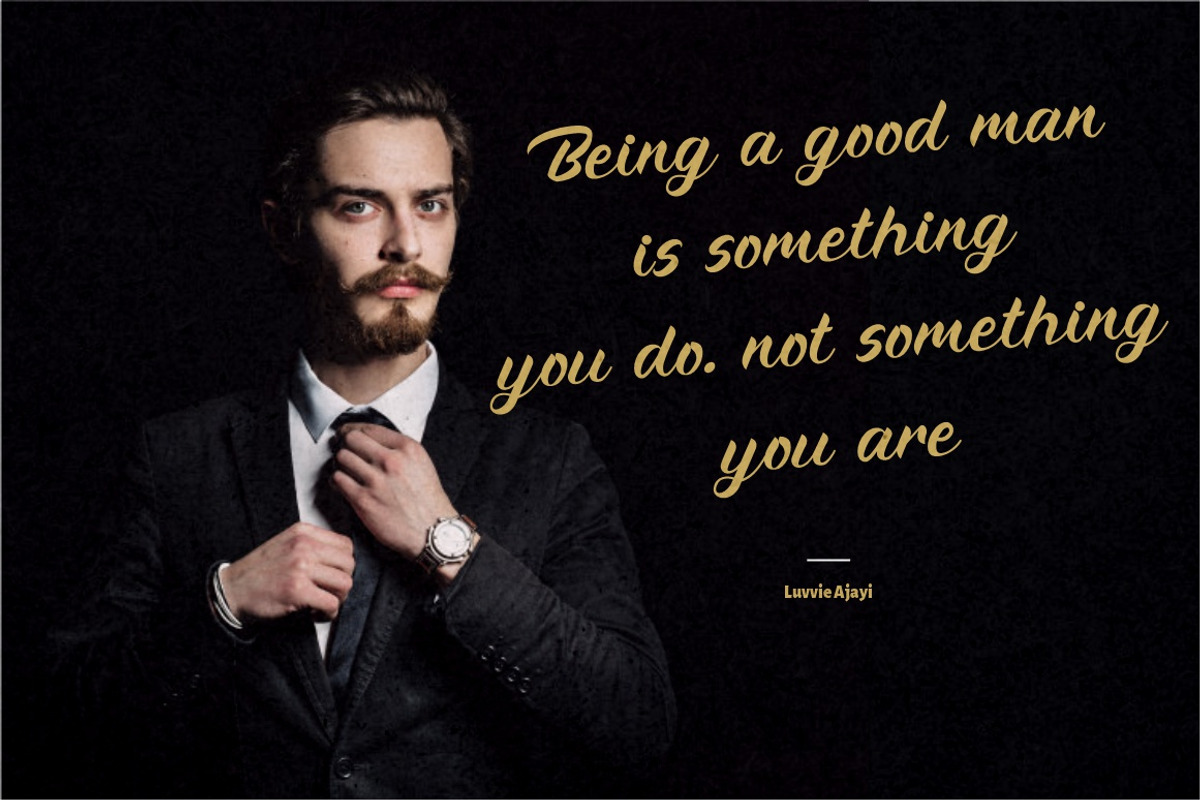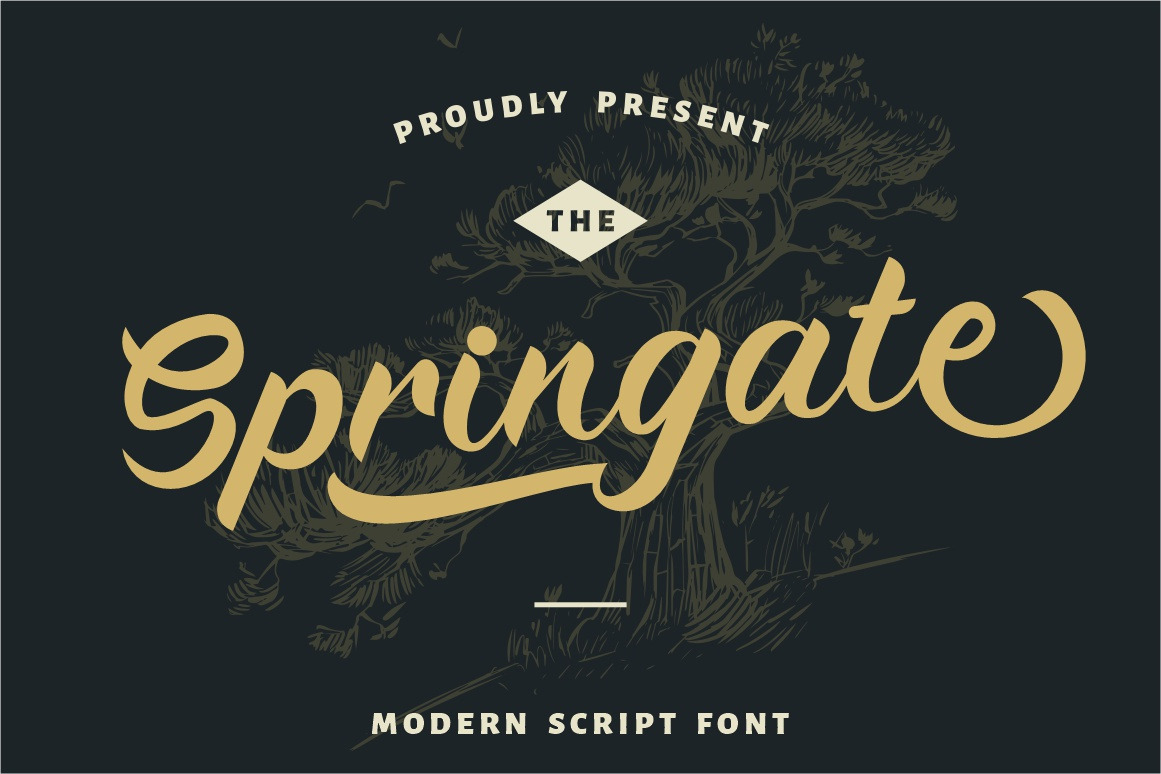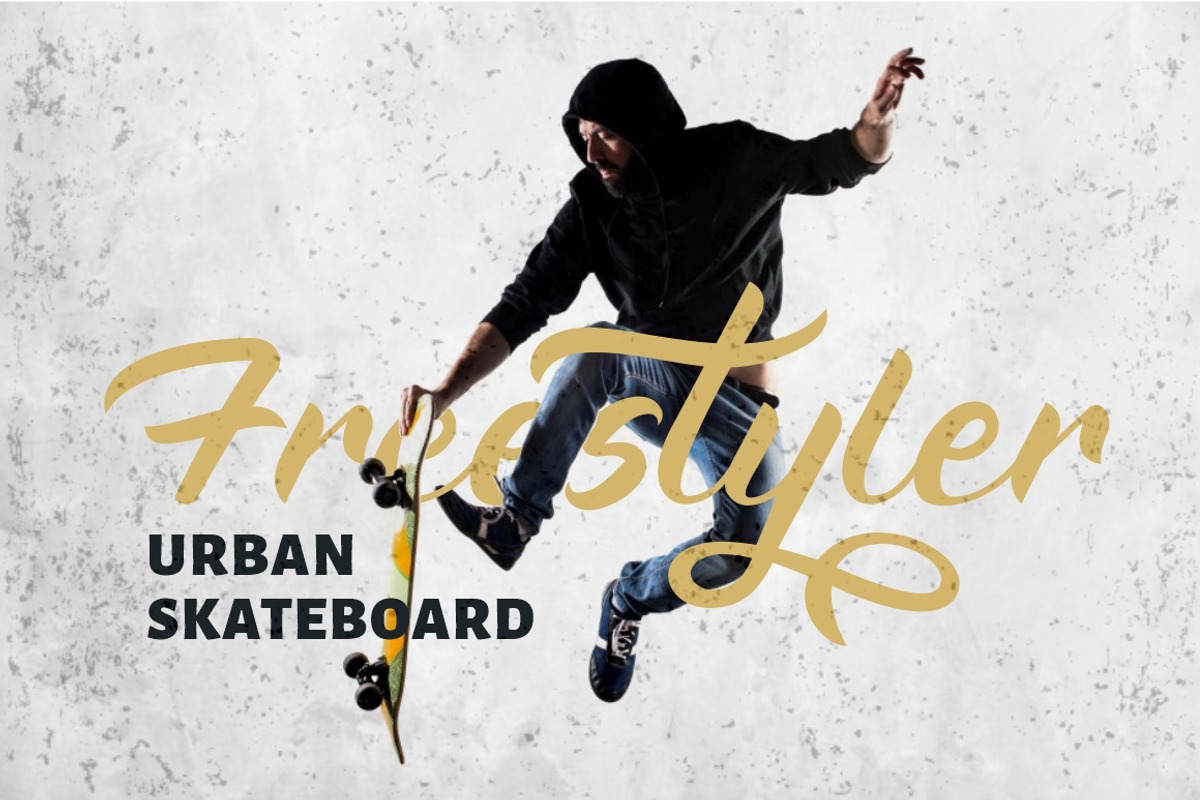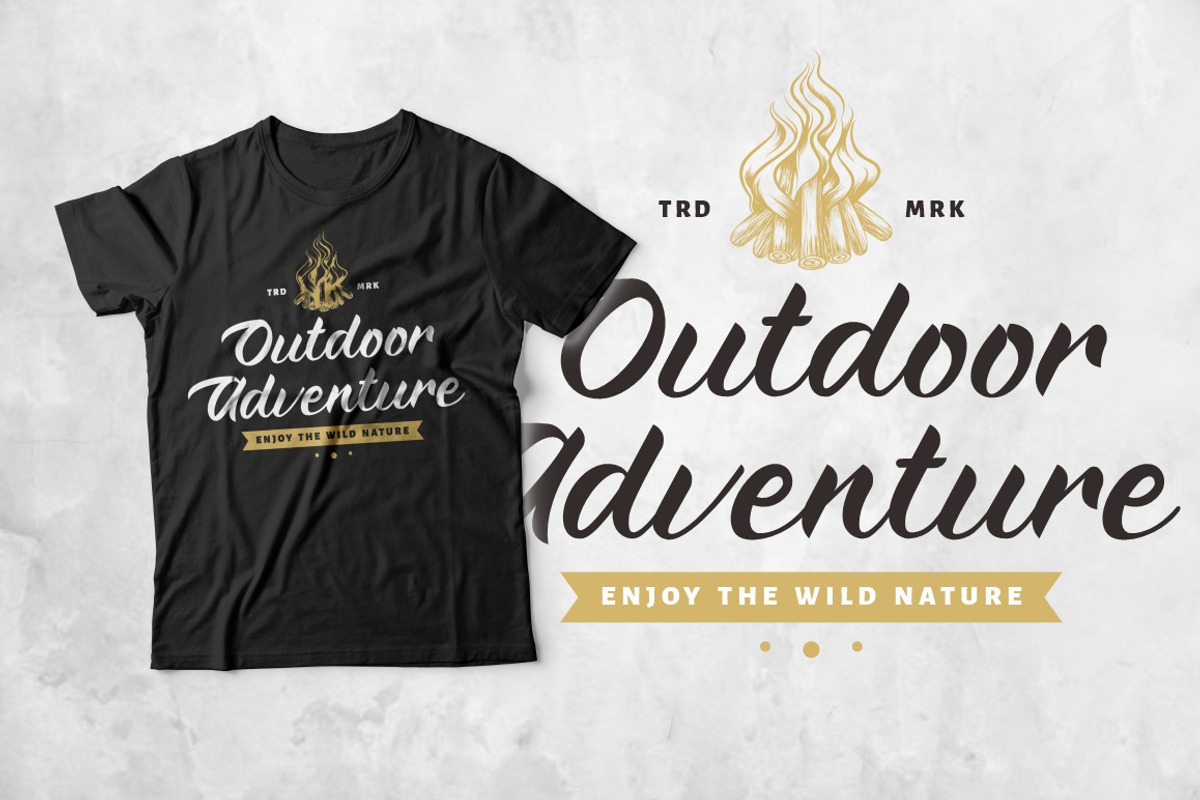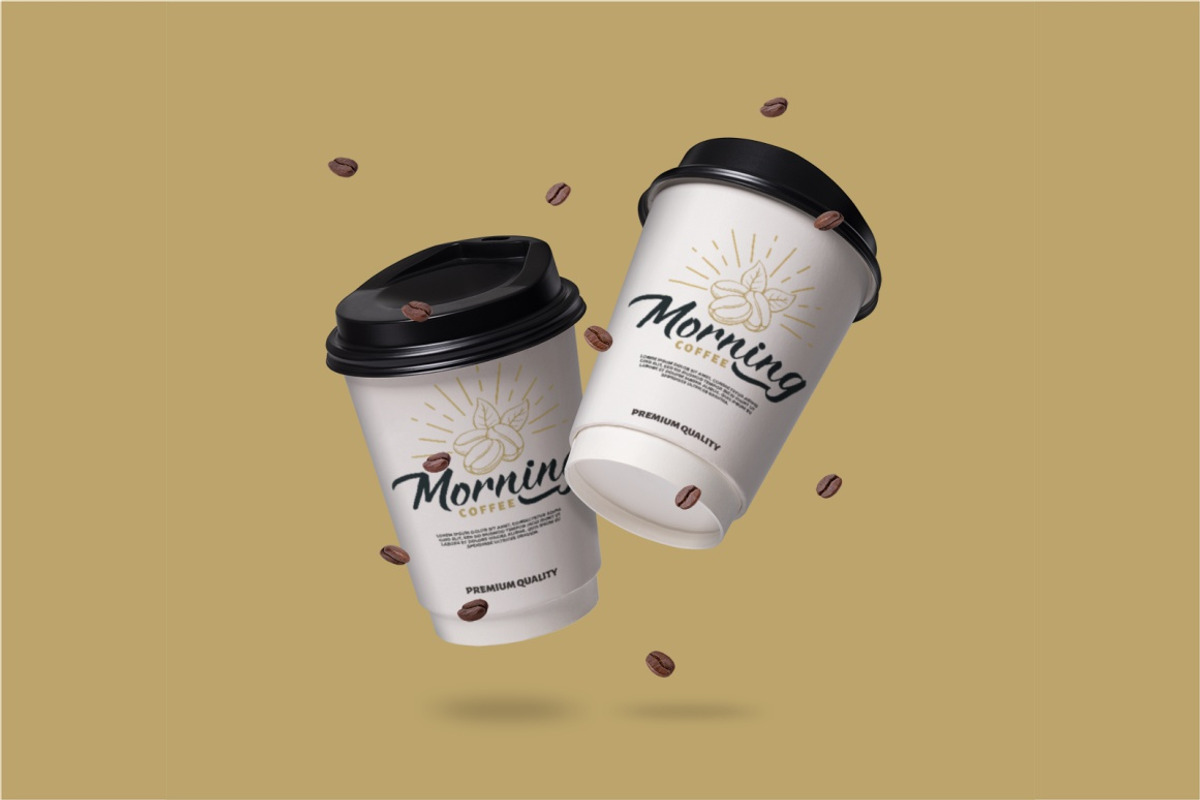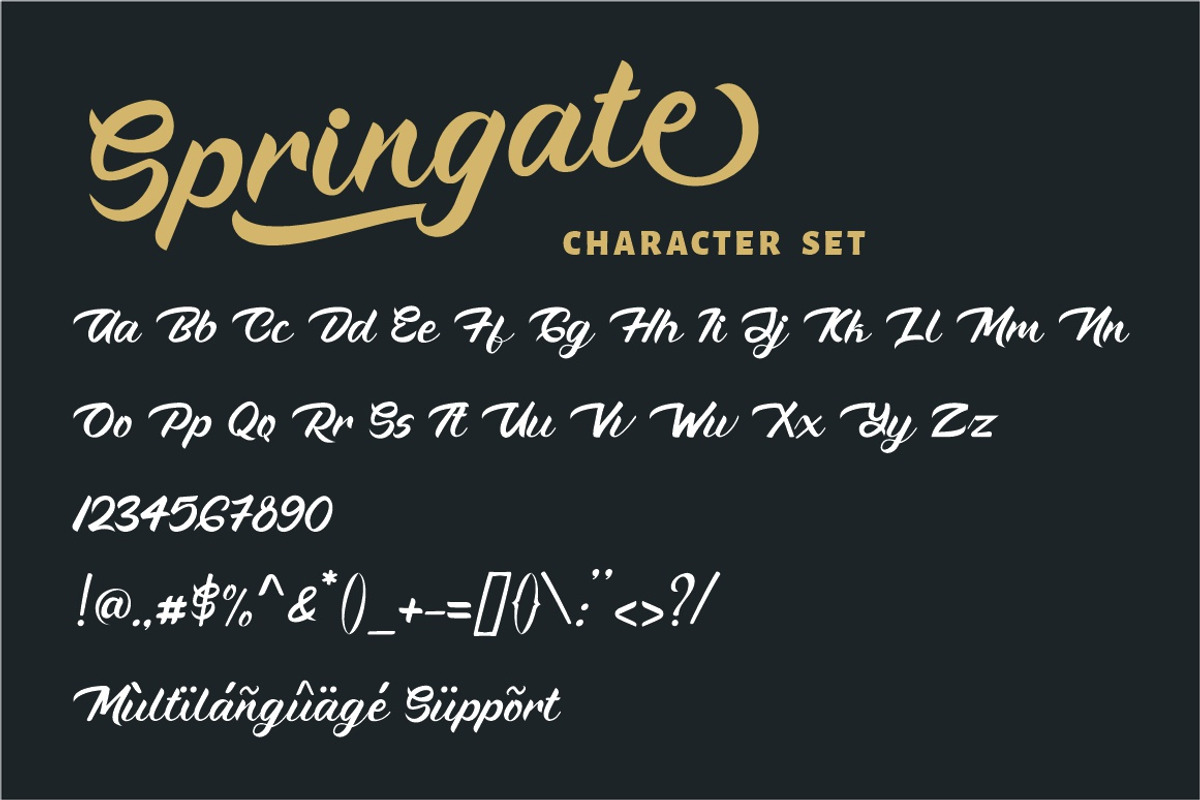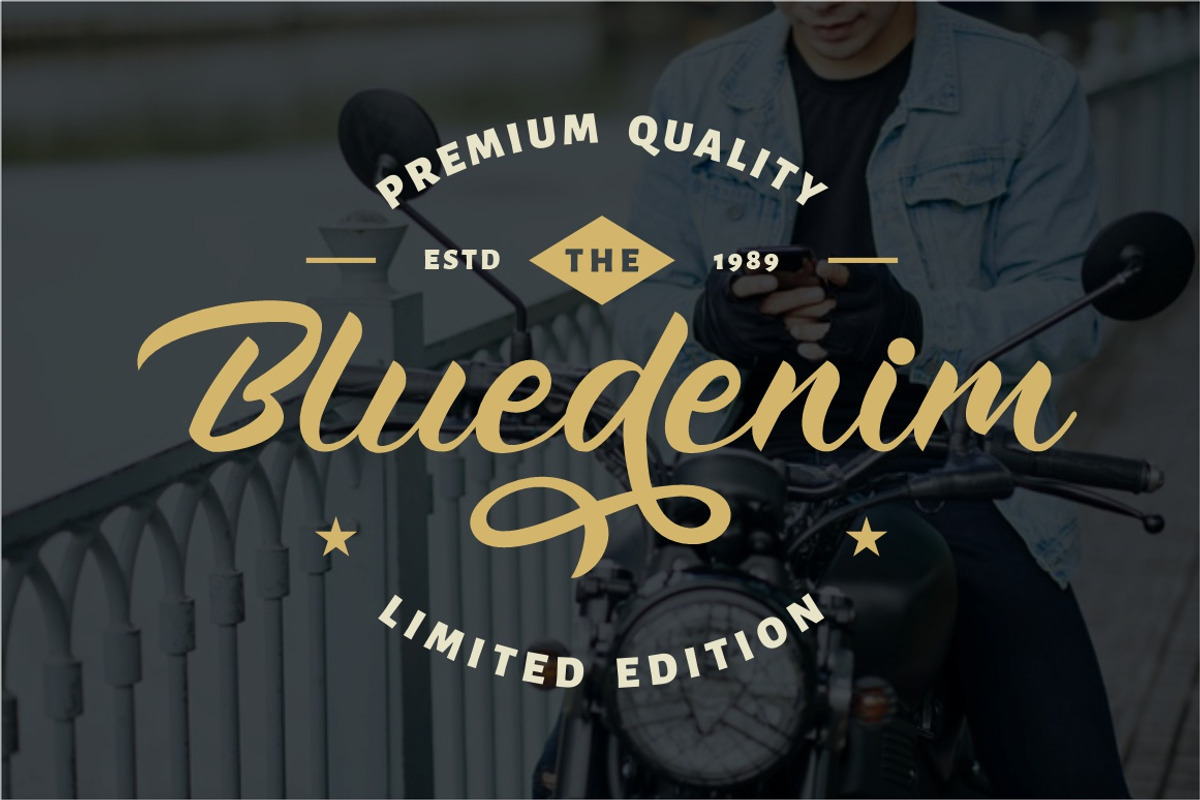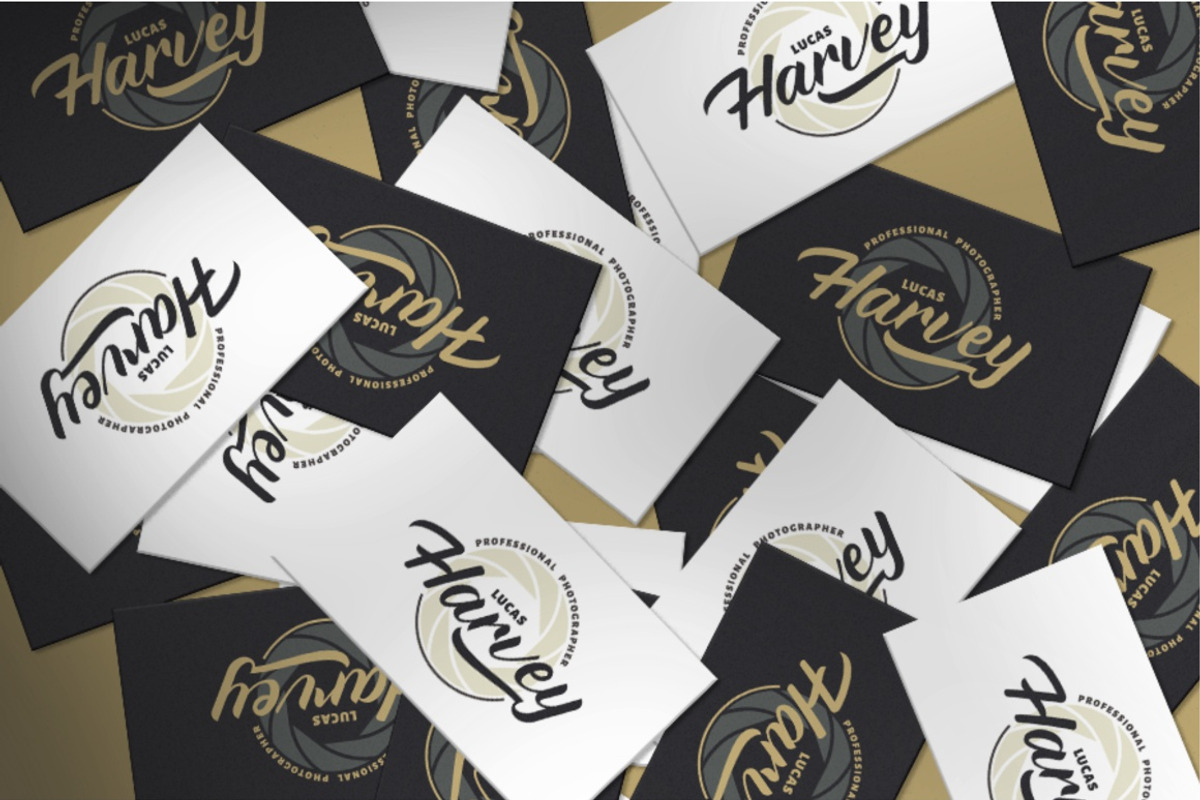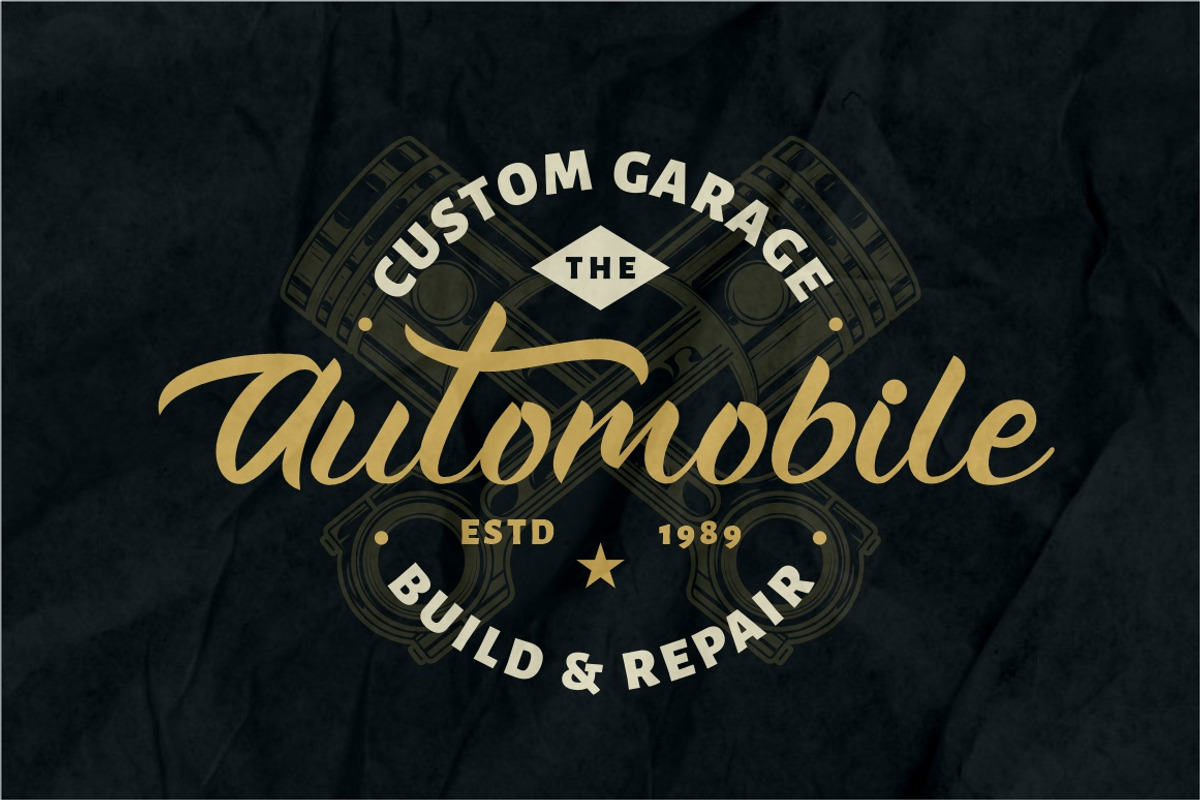
Springate - Modern Script Font
Introducing ... Springate
Springate is a modern script font that inspired by streetwear lettering and combination hand lettering style. And also this font has elegant and stylish characteristics, so it is also suitable for logos or product titles.
Also ideal for logos, badge, label, apparel, club, event, handwritten quotes, product packaging, header, poster, merchandise, social media & greeting cards.
Springate come with opentype feature like a lot of alternates. Its help you to make beautiful lettering. This font is also support multi language (áâàäåãæçéêèëíîìïıðñóôòöõøœšúûùüýÿžþÁÂÀÄÅÃÆÇÉÊÈËÍÎÌÏÐÑÓÔÒÖÕØŒŠÚÛÙÜÝŸŽÞ)
- Number, Punctuation And Symbols
- Multilanguage Support.